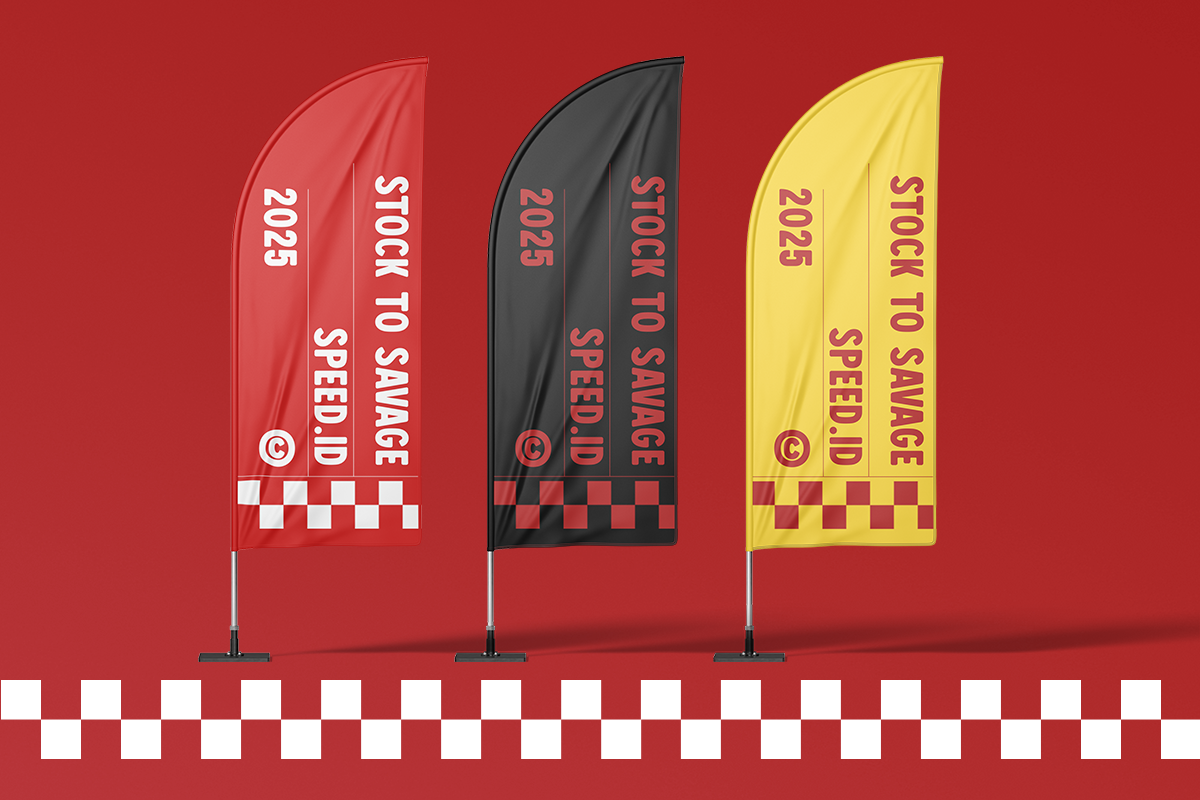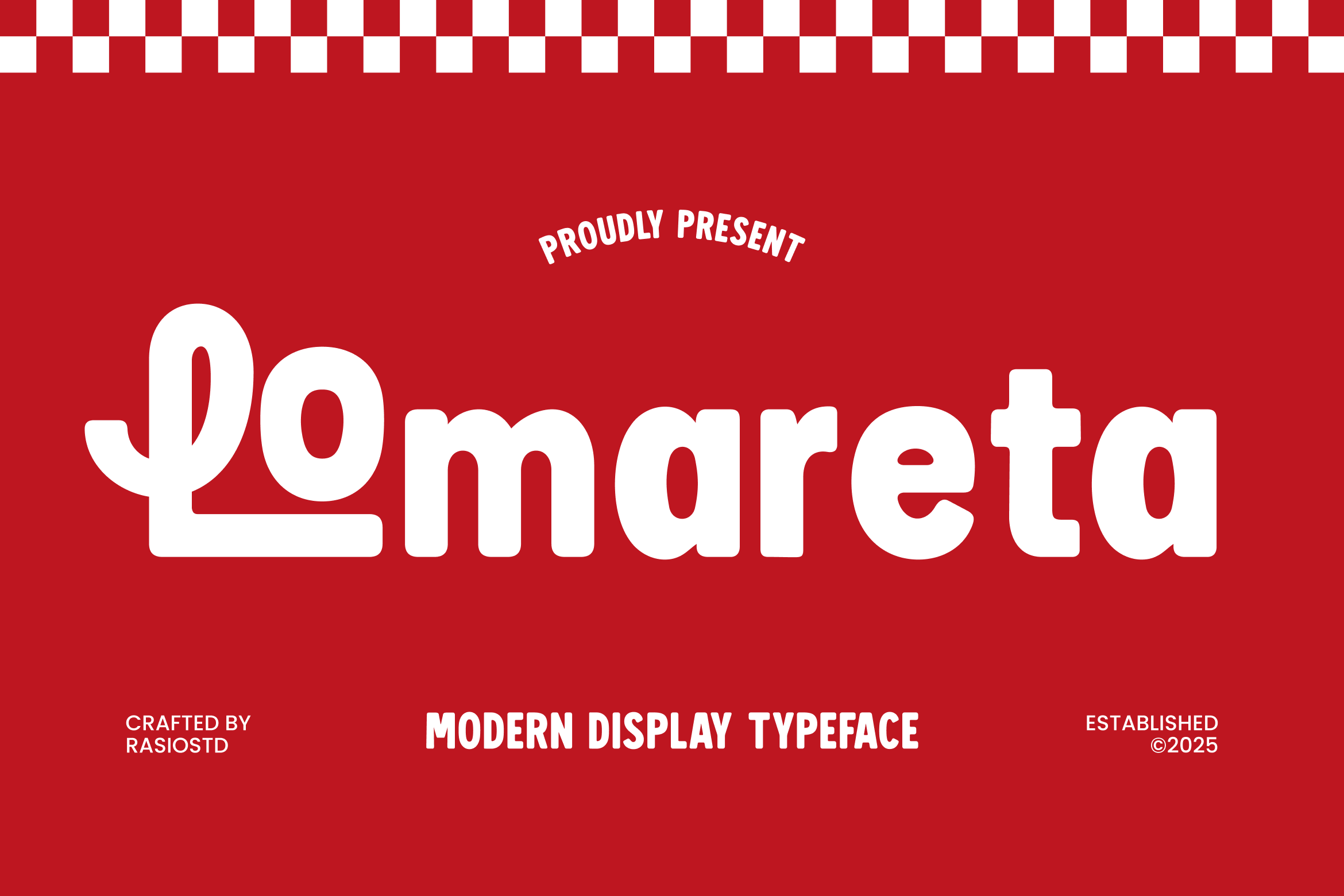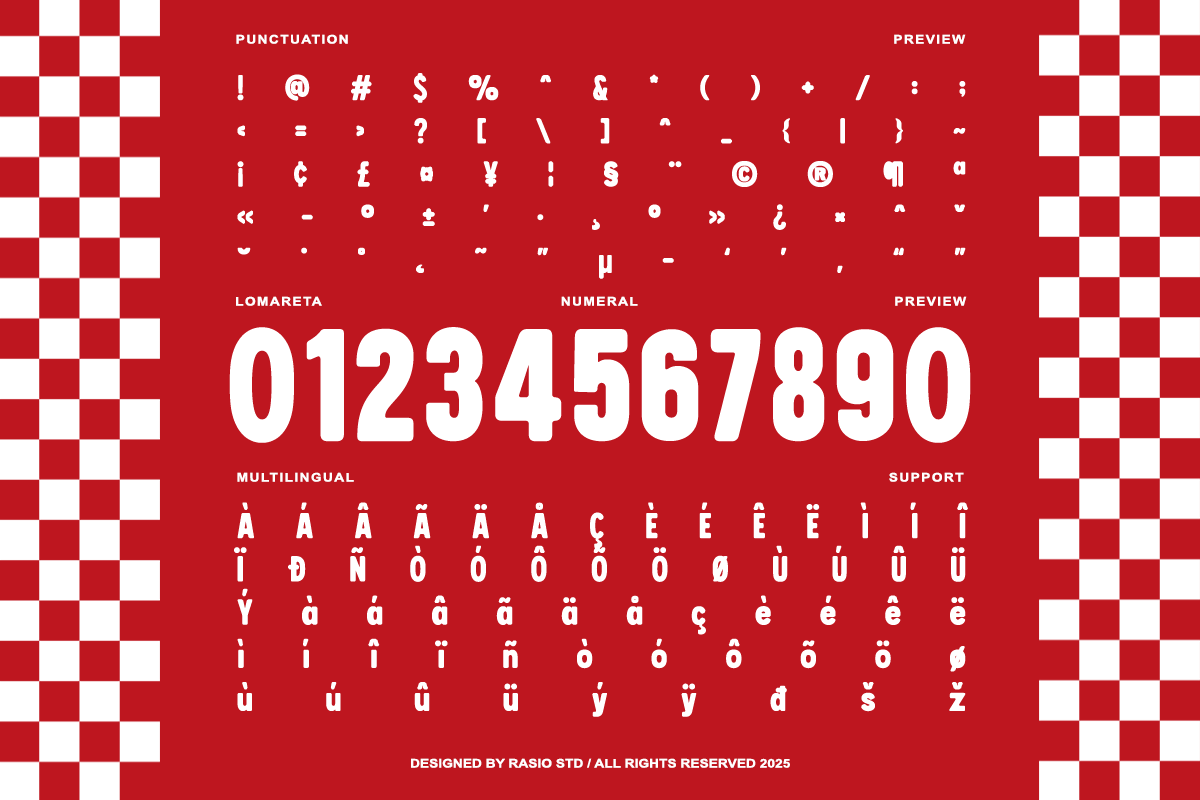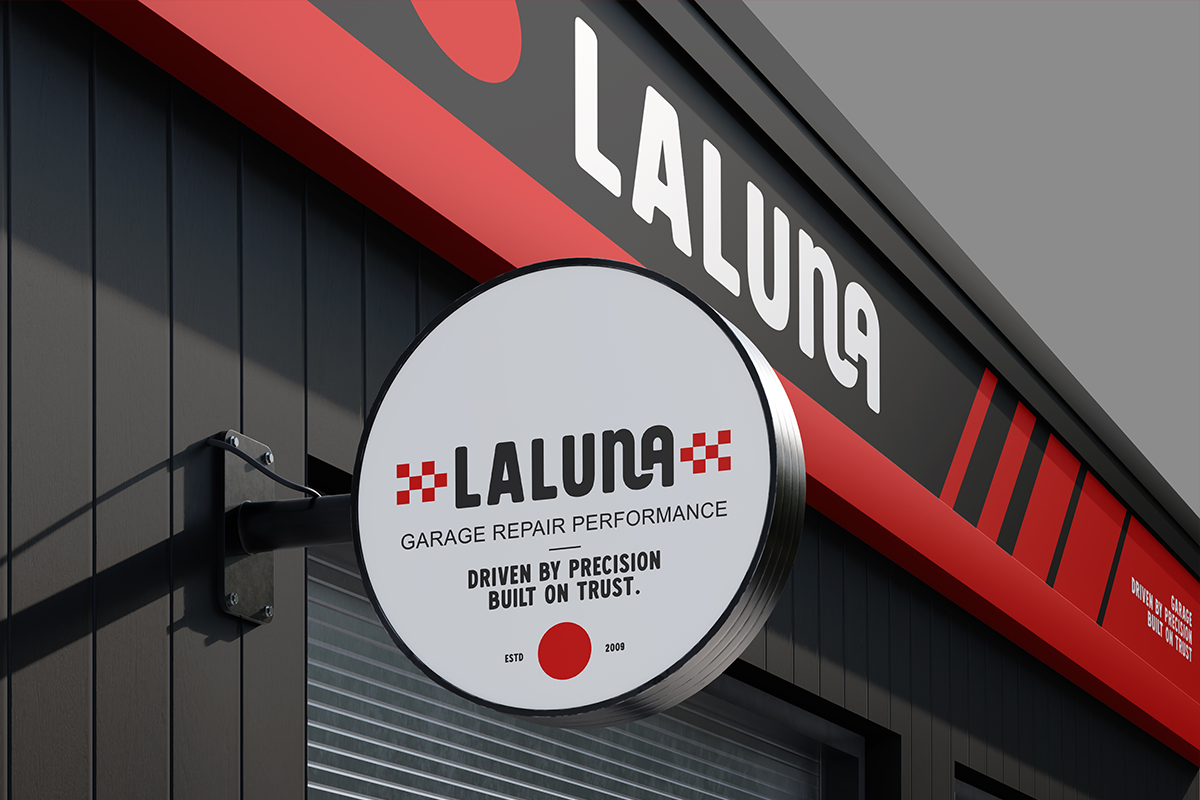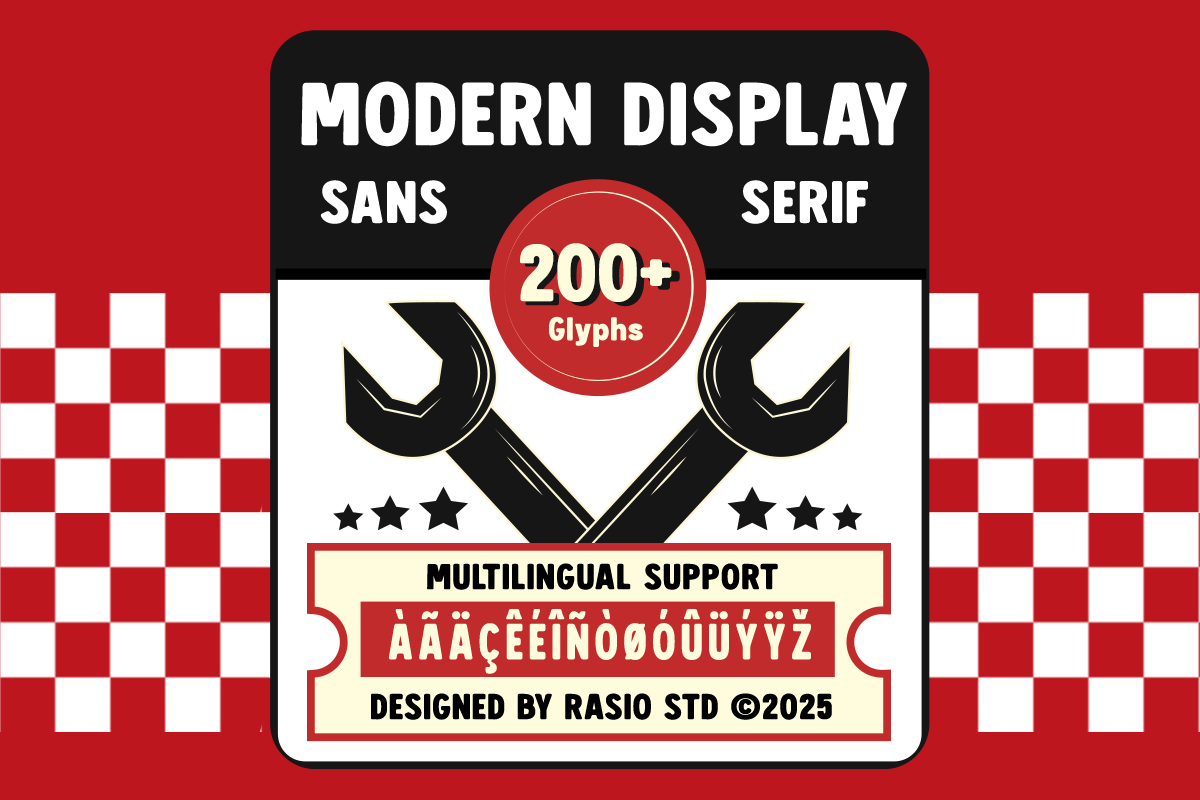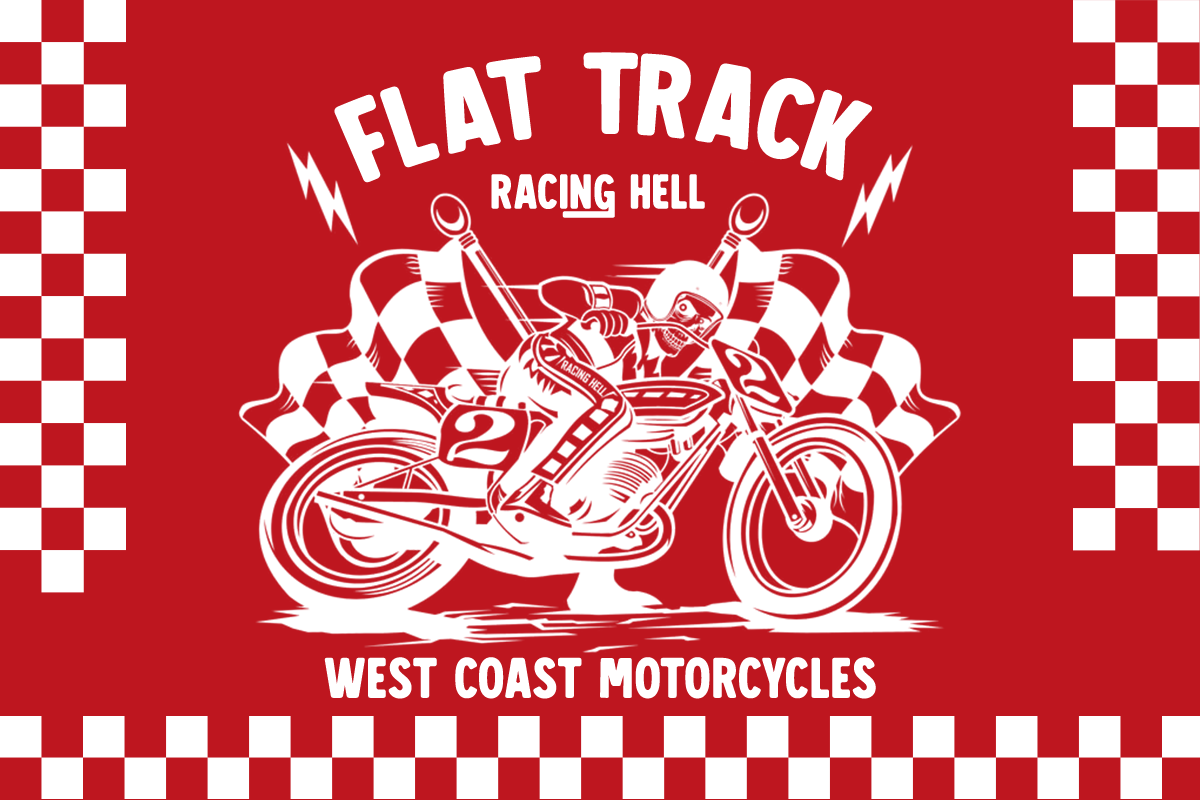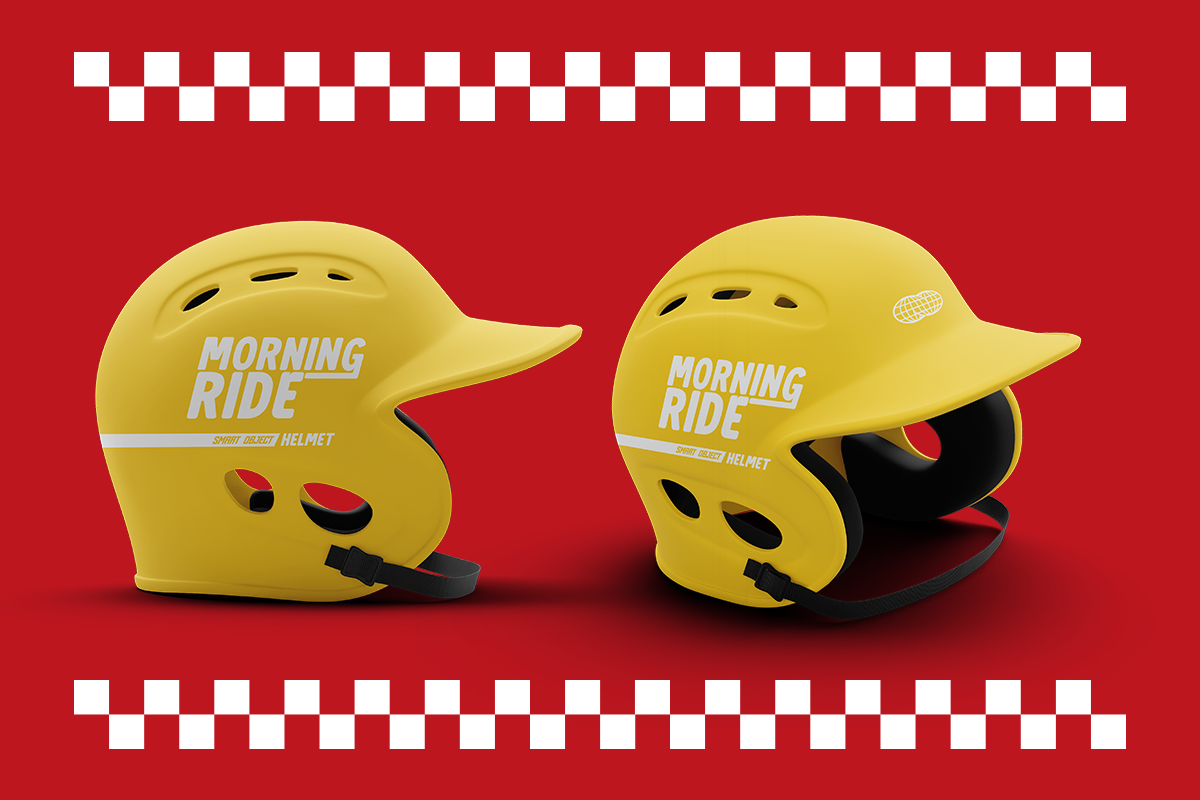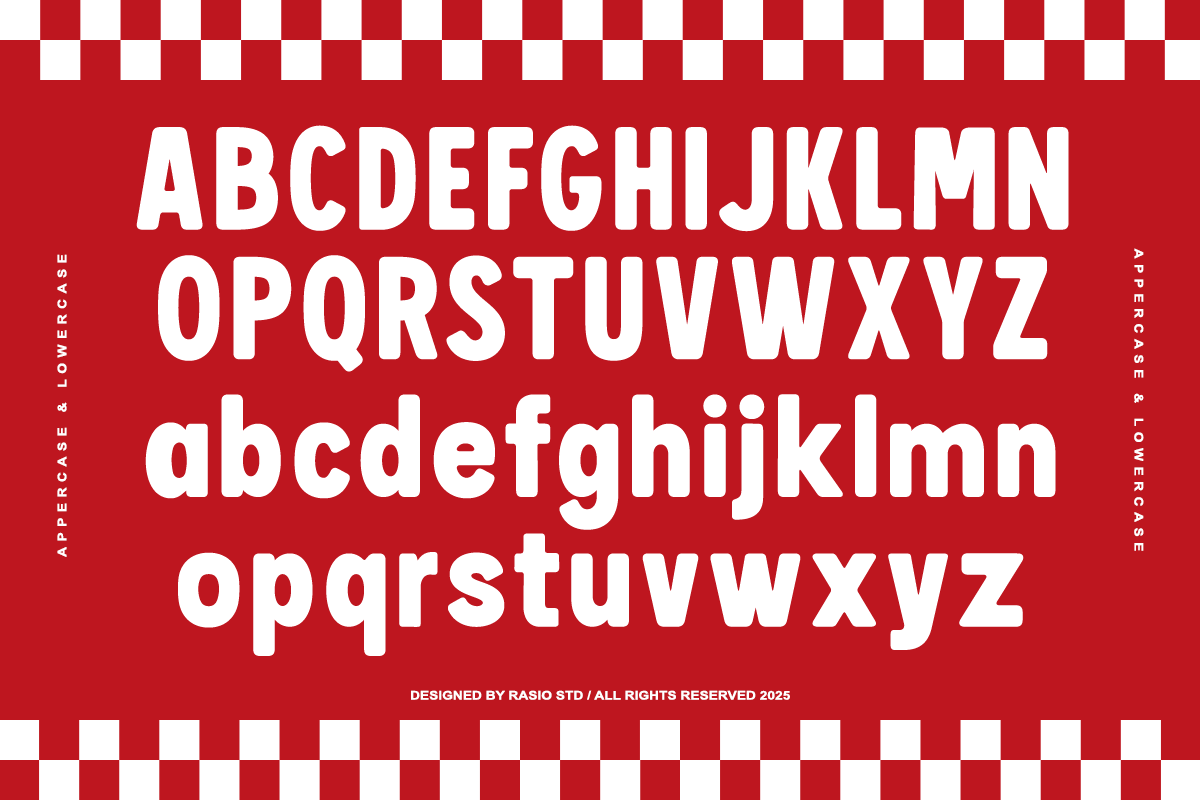
Lomareta Modern Typeface Font
Lomareta is a bold modern display typeface featuring soft rounded letterforms and a playful geometric structure. The thick strokes and smooth curves create a friendly yet confident visual tone, making it perfect for eye-catching headlines and expressive branding. Its balanced proportions and chunky character shapes deliver strong readability while maintaining a cheerful and energetic personality.
Lomareta is designed for bold visual communication where personality and readability are equally important. Its rounded and chunky letterforms make it highly effective for branding, logo design, poster headlines, packaging, social media graphics, merchandise design, advertising visuals, and promotional campaigns. The playful yet modern aesthetic also works well for food brands, lifestyle products, creative studios, entertainment projects, and youth-focused marketing materials that require a strong and friendly typographic presence.
- Bold rounded letterforms that create a friendly and approachable display style
- Smooth curved terminals that enhance the playful and modern character of the typeface
- Thick consistent strokes that provide strong visual impact for headlines
- Soft geometric structure that keeps the shapes balanced and easy to read
- Well-balanced spacing designed to maintain clarity in bold display compositions
- Bold logo design and brand identity for playful or modern brands
- Eye-catching poster headlines, advertising graphics, and promotional materials
- Product packaging for food, snacks, beverages, and lifestyle products
- Social media graphics, marketing banners, and digital campaigns
- Merchandise design such as t-shirts, stickers, labels, and creative branding assets